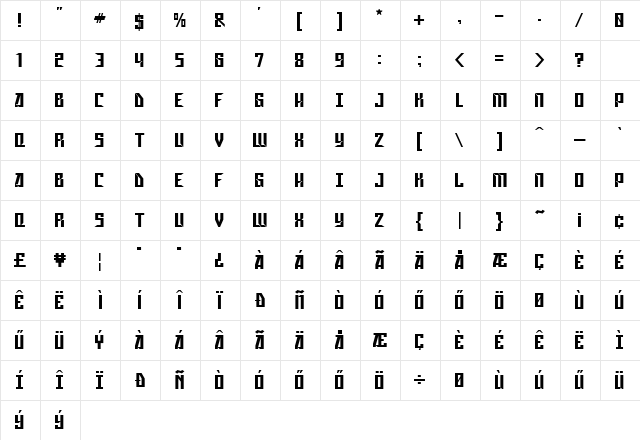
Gagarin Star Mix Regular
Design Context for Gagarin Star Mix Typeface
Gagarin Star Mix is a composed and adaptable typeface that performs quietly and consistently across a wide range of design contexts.